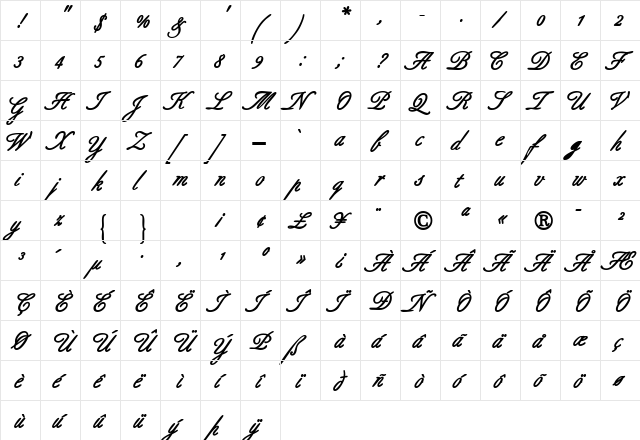
AldridgeScriptSSK Bold
Design Context for AldridgeScriptSSK Typeface
AldridgeScriptSSK brings a calligraphic fluidity to the page — its connecting strokes and expressive curves give it an unmistakably human quality. Its bold stroke weight gives it real presence on the page.
Font Pairing: Combine AldridgeScriptSSK with a simple geometric sans for maximum contrast — the tension between flowing curves and clean structure is a classic typographic pairing.
Pro Tip: Pair AldridgeScriptSSK with a clean sans-serif for supporting text. The contrast between fluid script and geometric structure creates an elegant typographic hierarchy.